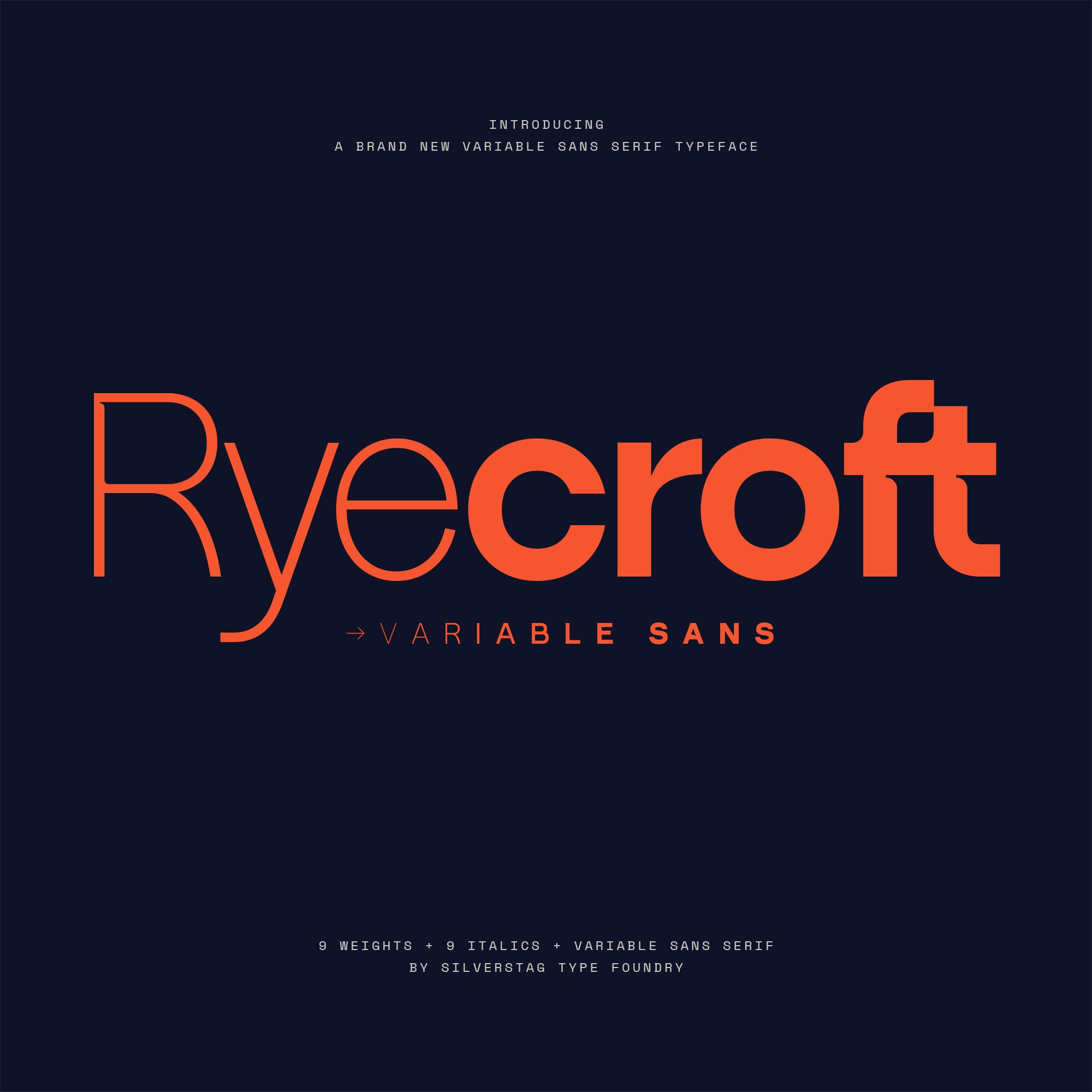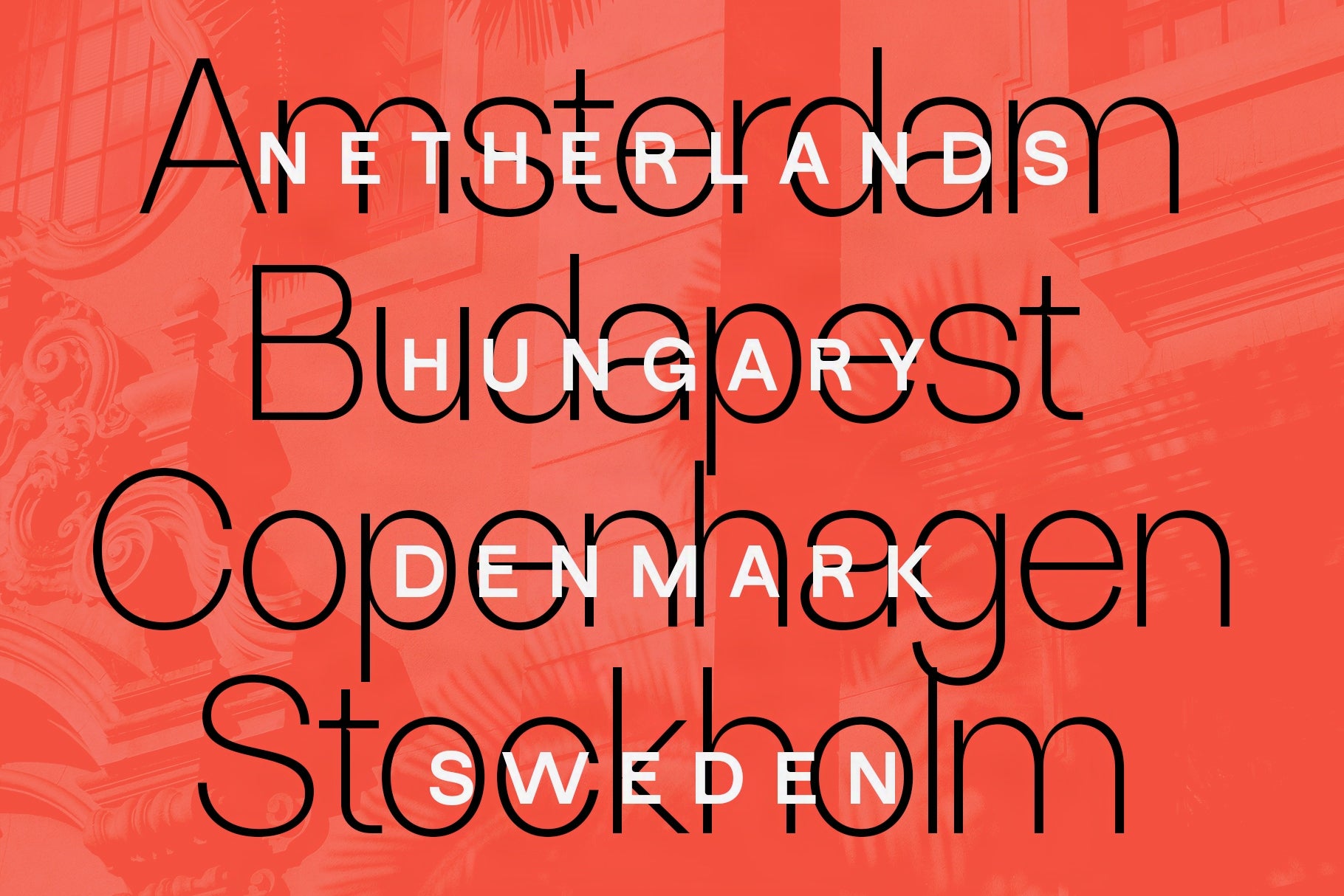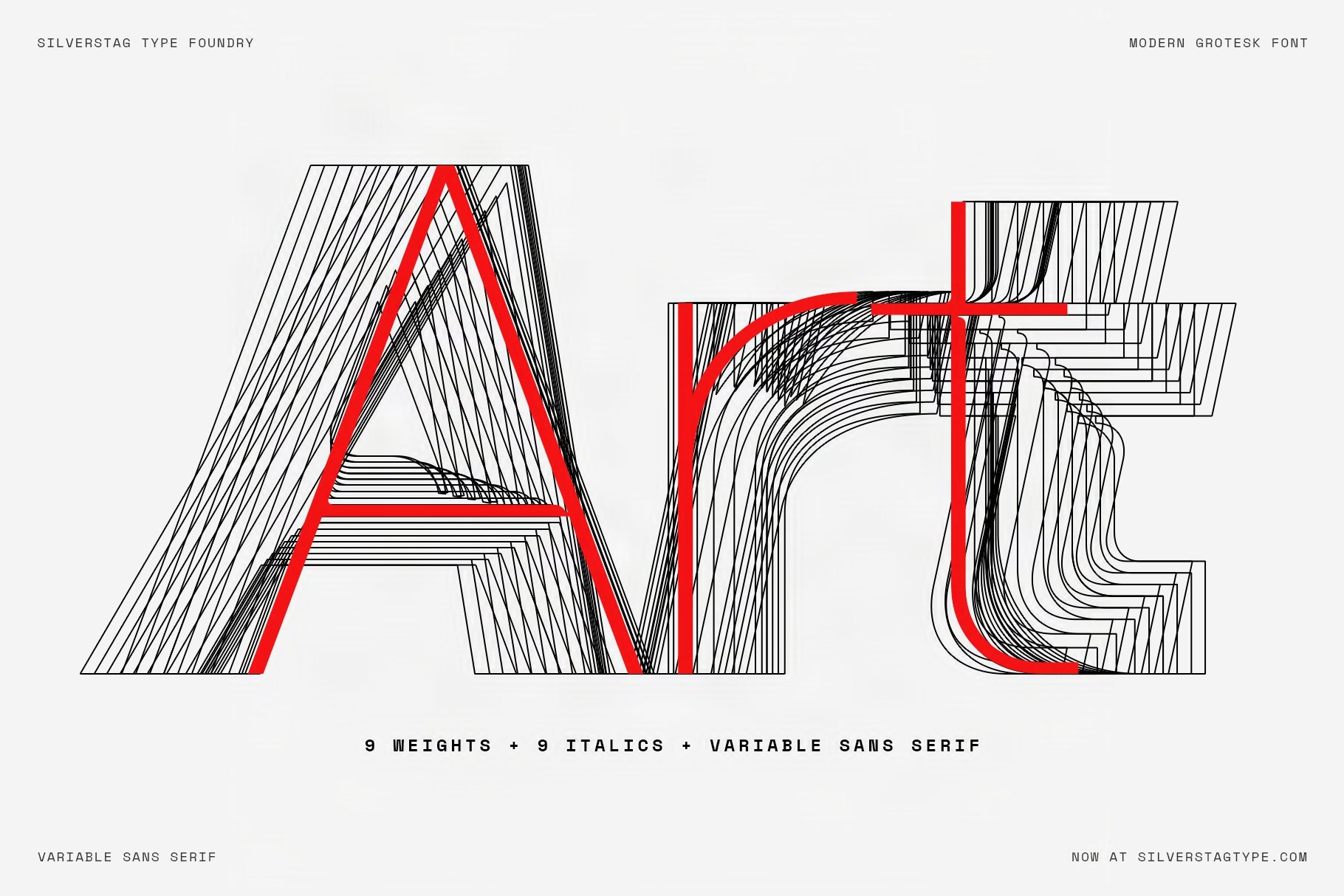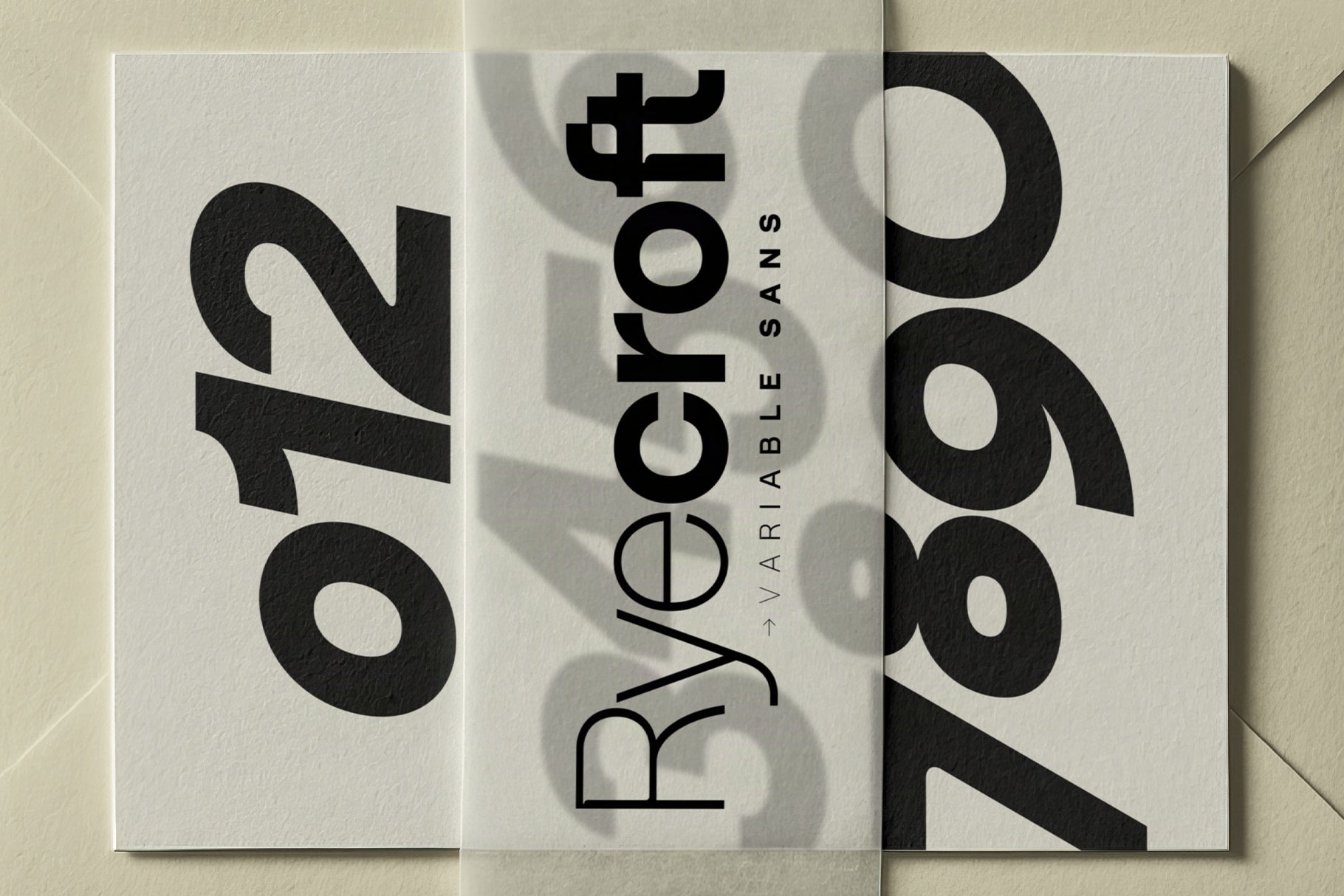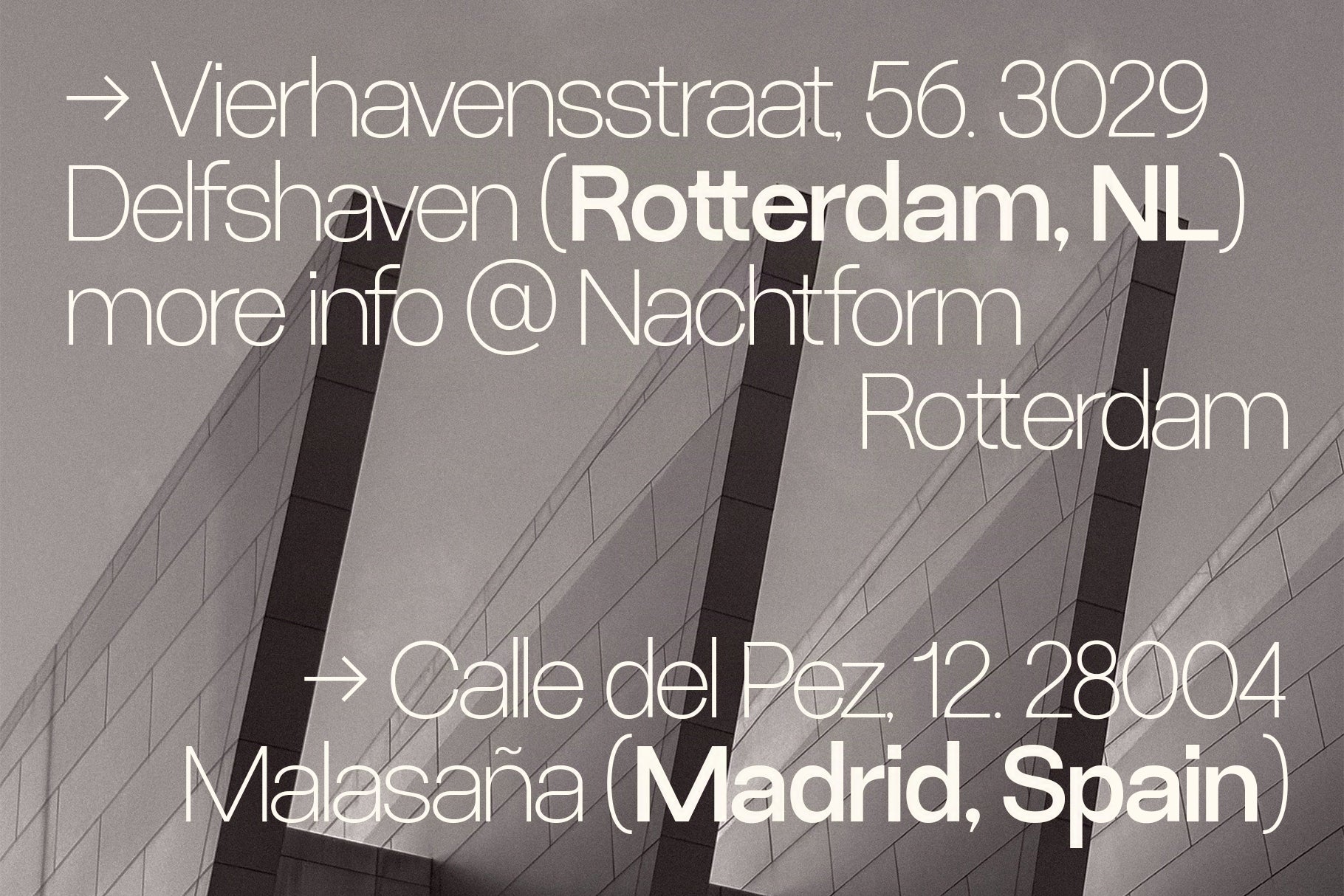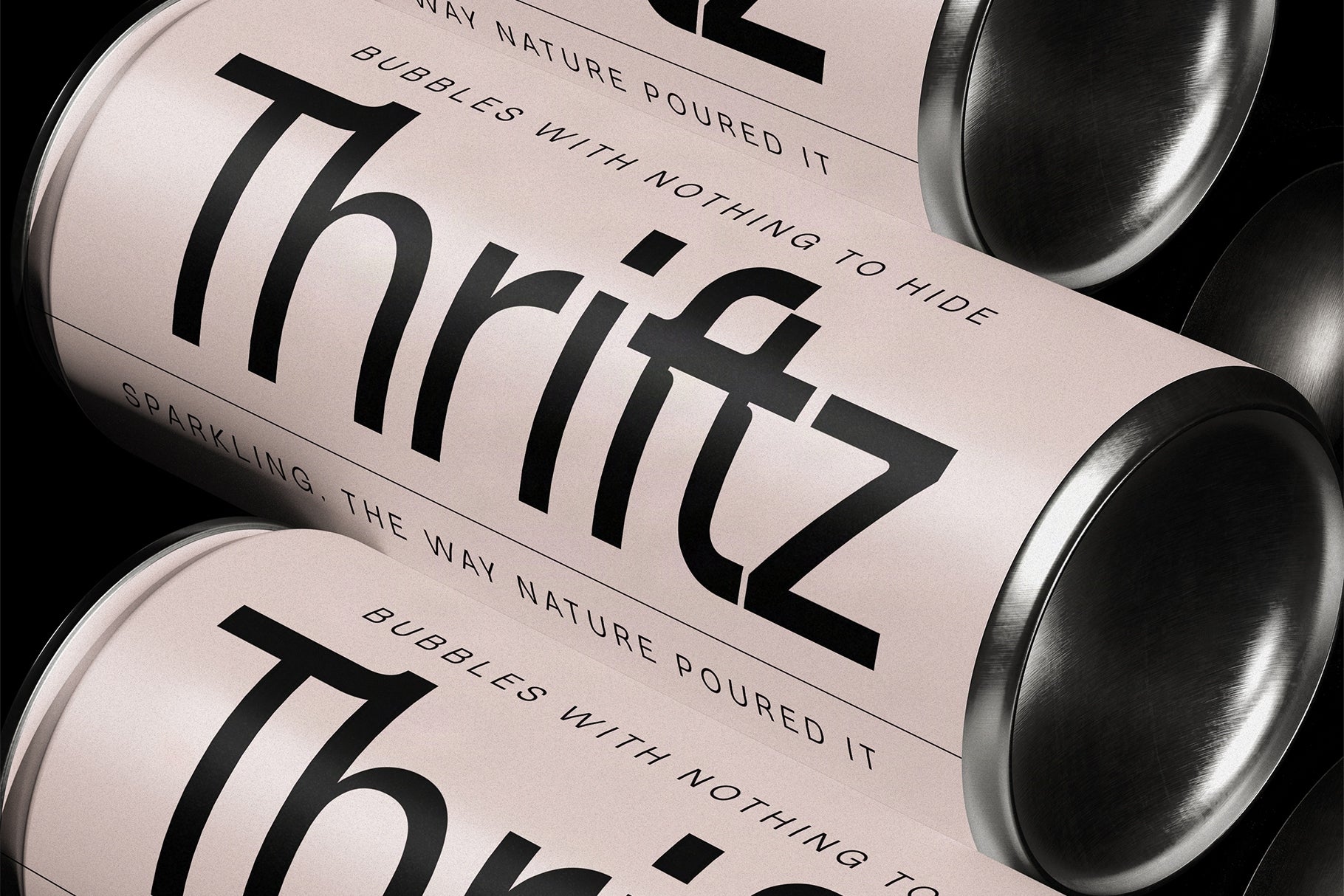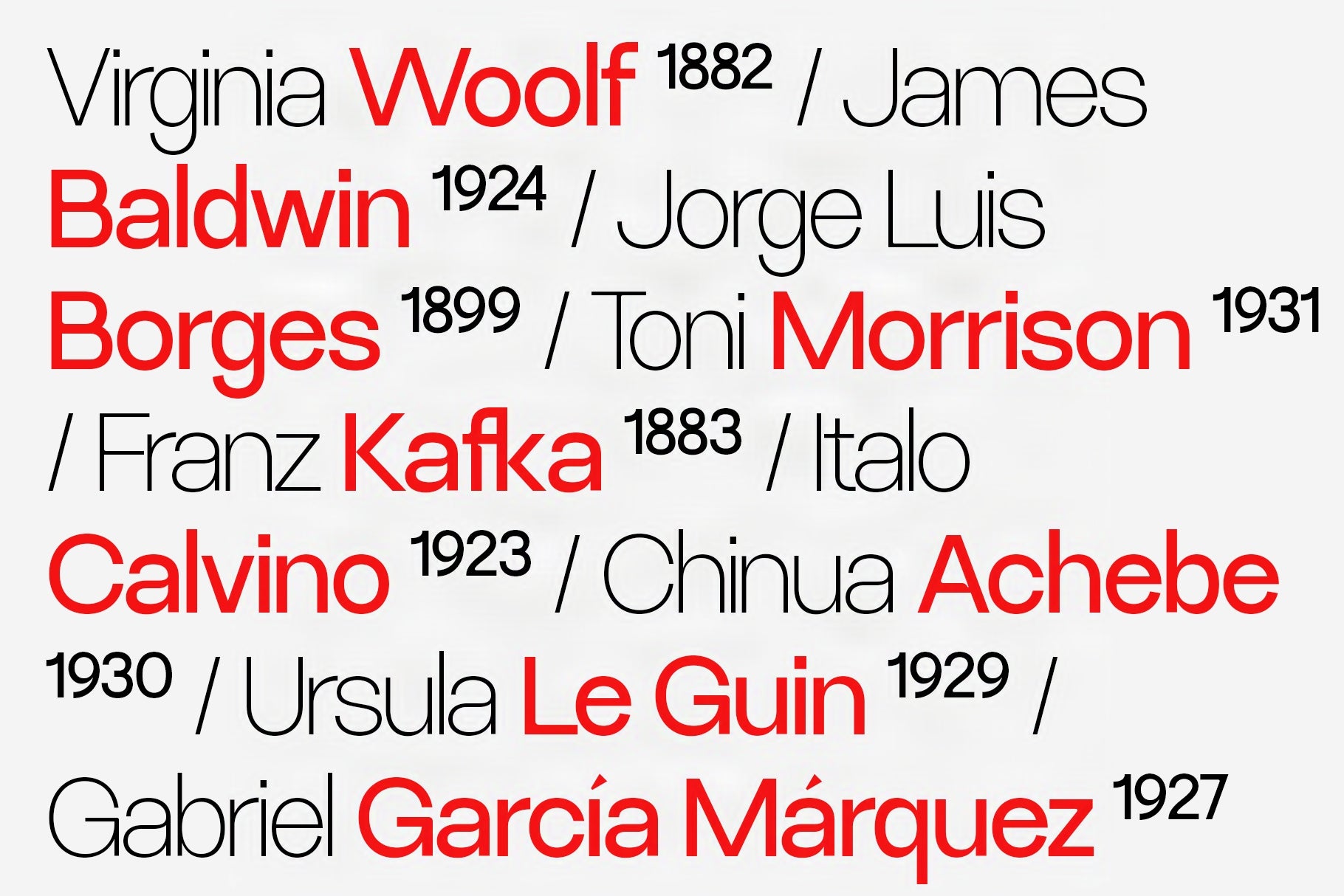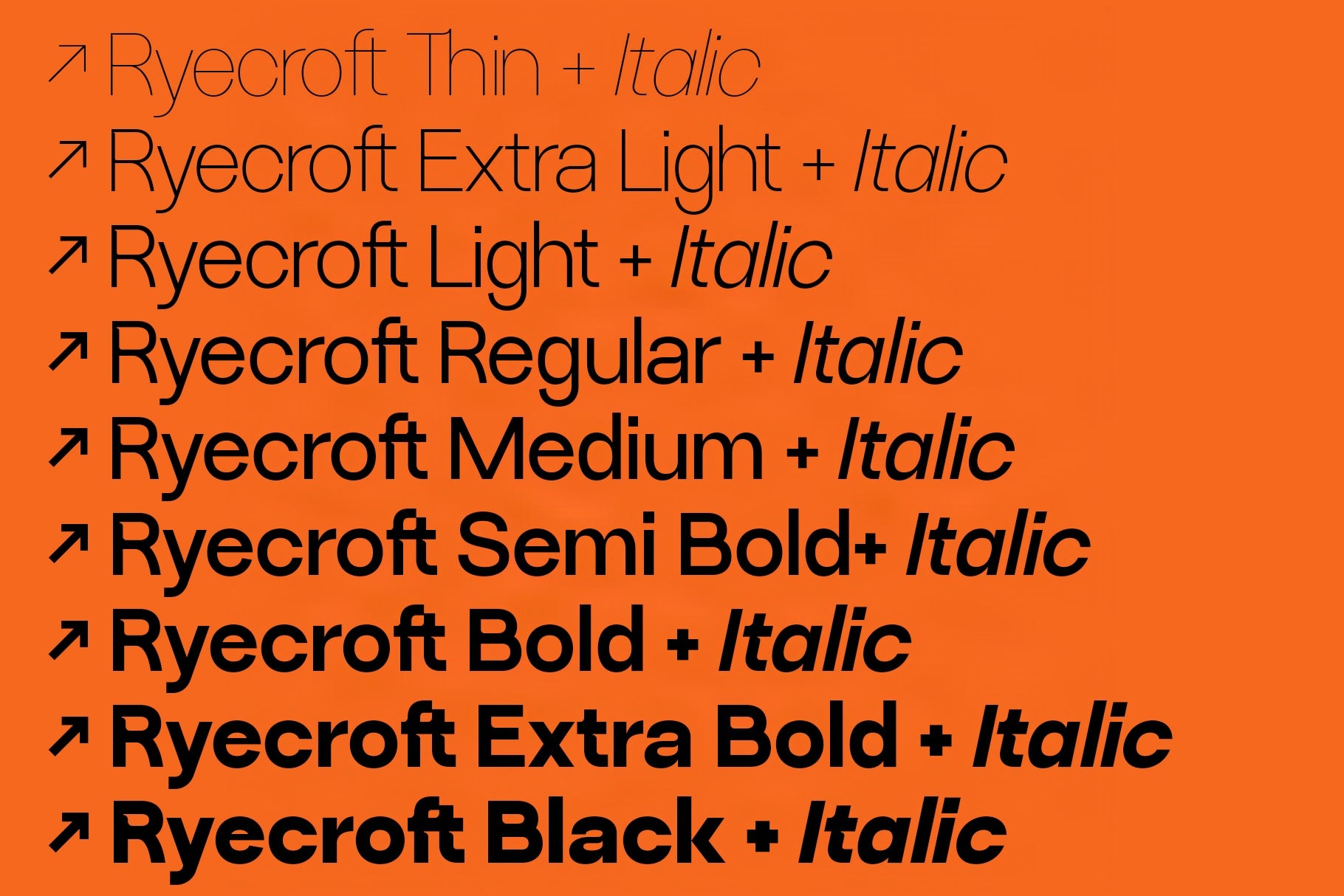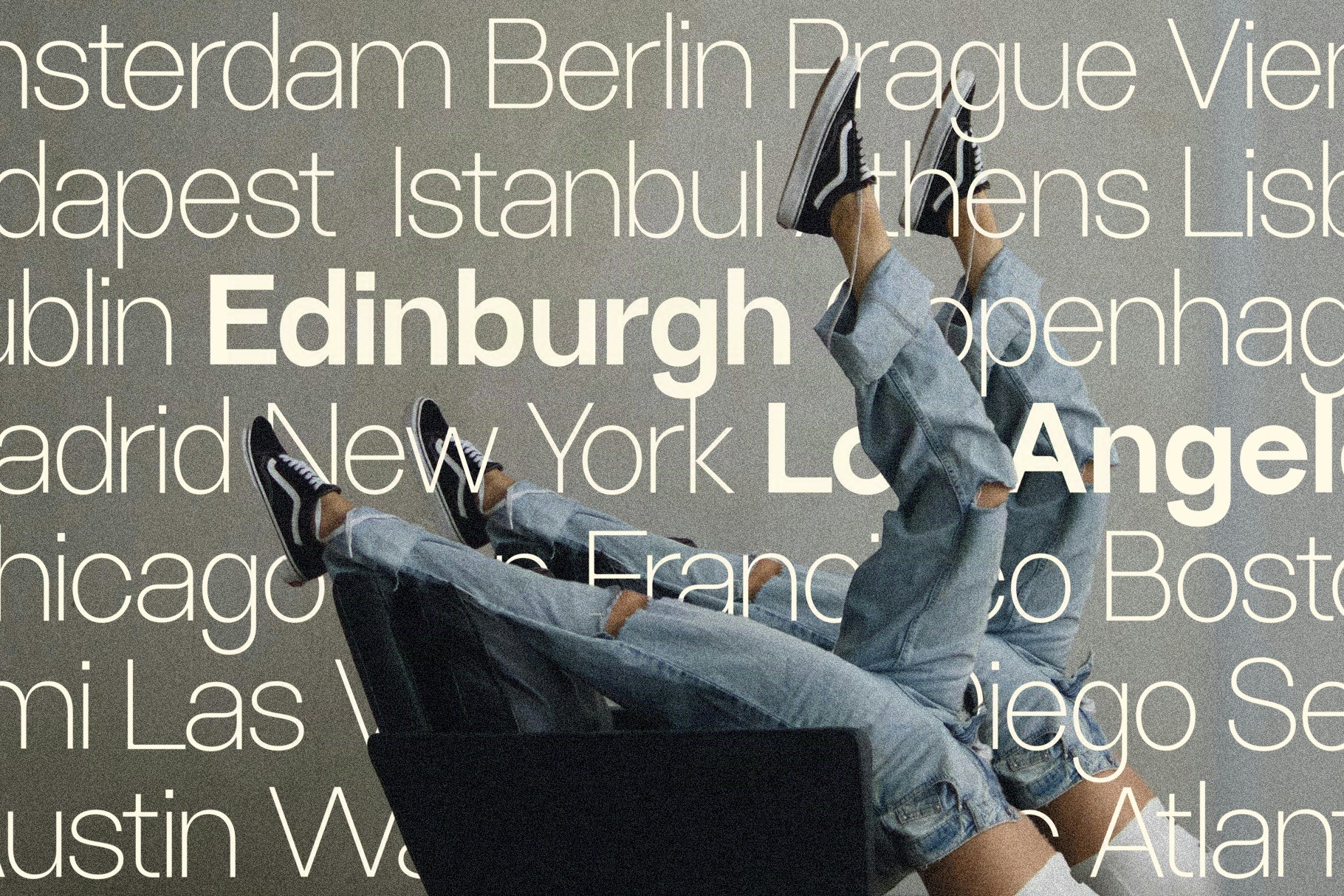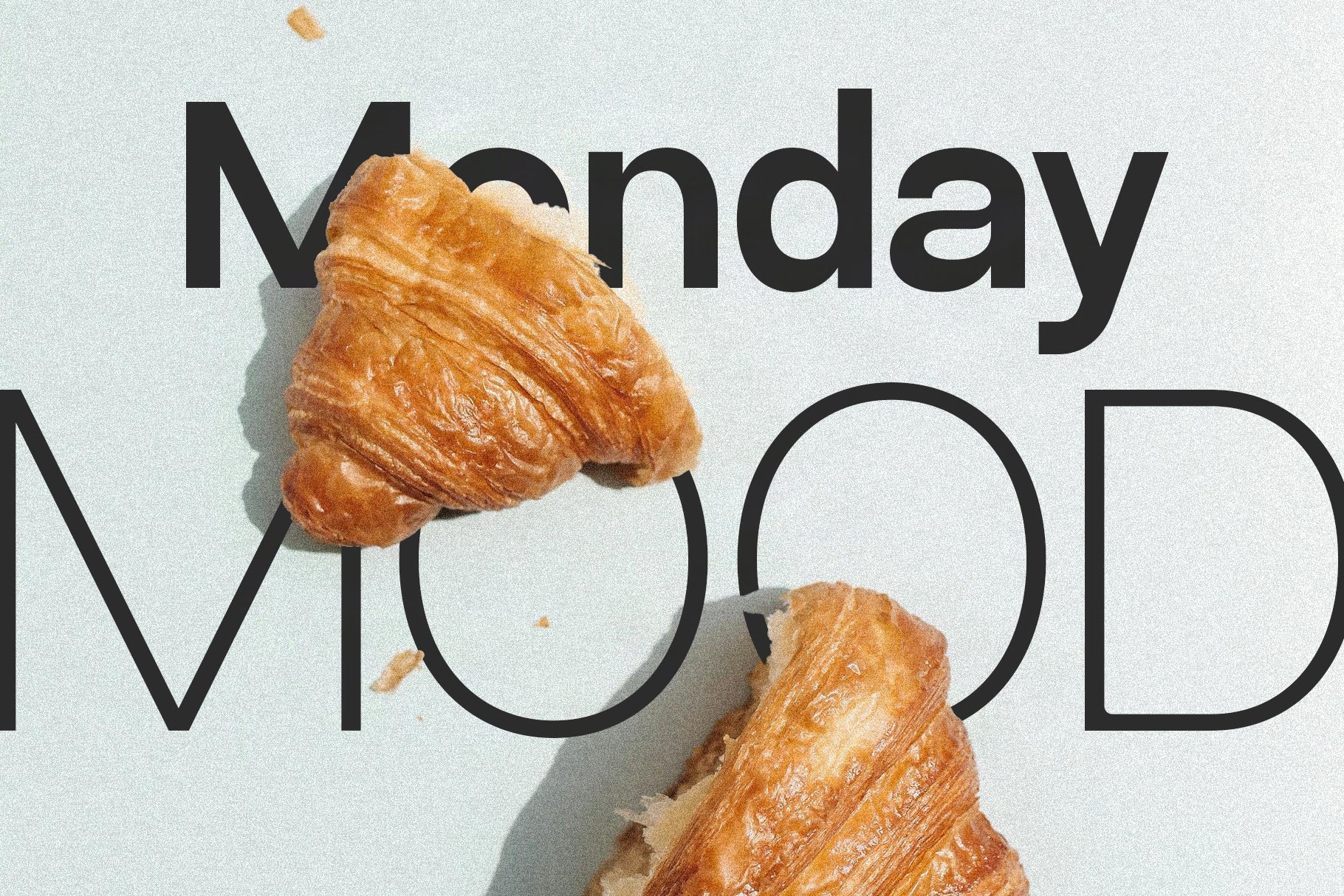
Ryecroft - Variable Sans Typeface
SilverStag Type Foundry
SLTF Ryecroft is a modern grotesk sans serif in 9 weights and 9 true italics.
Wide open counters, low contrast and clean cut terminals, so it holds at caption size and at poster size. The italics are drawn as true italics, with the two-story roman a becoming a single-story a, which changes the rhythm of a line far more than the slant does.
There is also a variable font with two axes, Weight from 100 to 900 and an Italic axis that swaps in the true italic forms as you cross it. The variable version is available only at silverstagtype.com.
Ryecroft is a modern grotesk sans serif typeface available in 9 weights and 9 true italics, featuring wide open counters and clean cut terminals for versatility at various sizes. It includes a variable font option with two axes for Weight (100 to 900) and Italic, with the variable version exclusively available at silverstagtype.com.